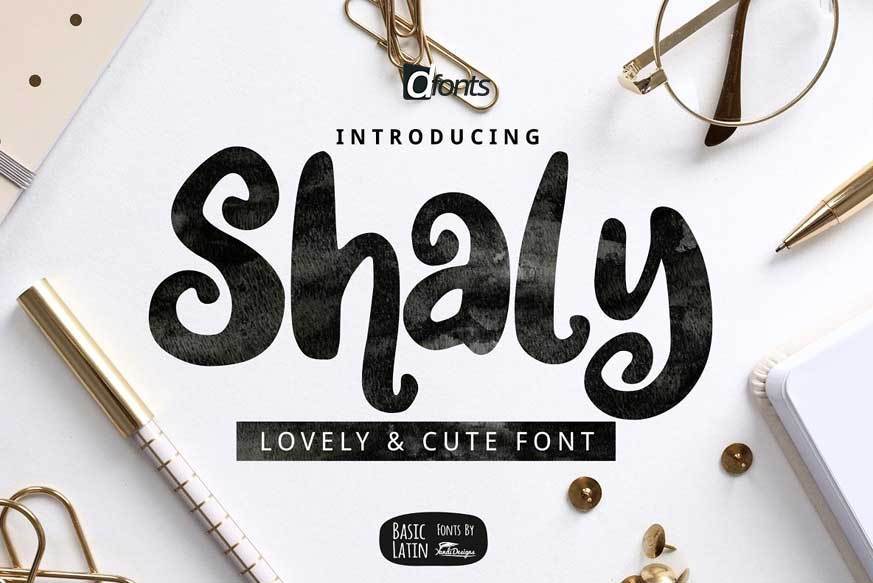
Shaly Cute Font
Shaly font is lovely , cute, simple, playful, multipurpose handwritten font , suitable for many project children book, quotes, logo , heading , title etc.